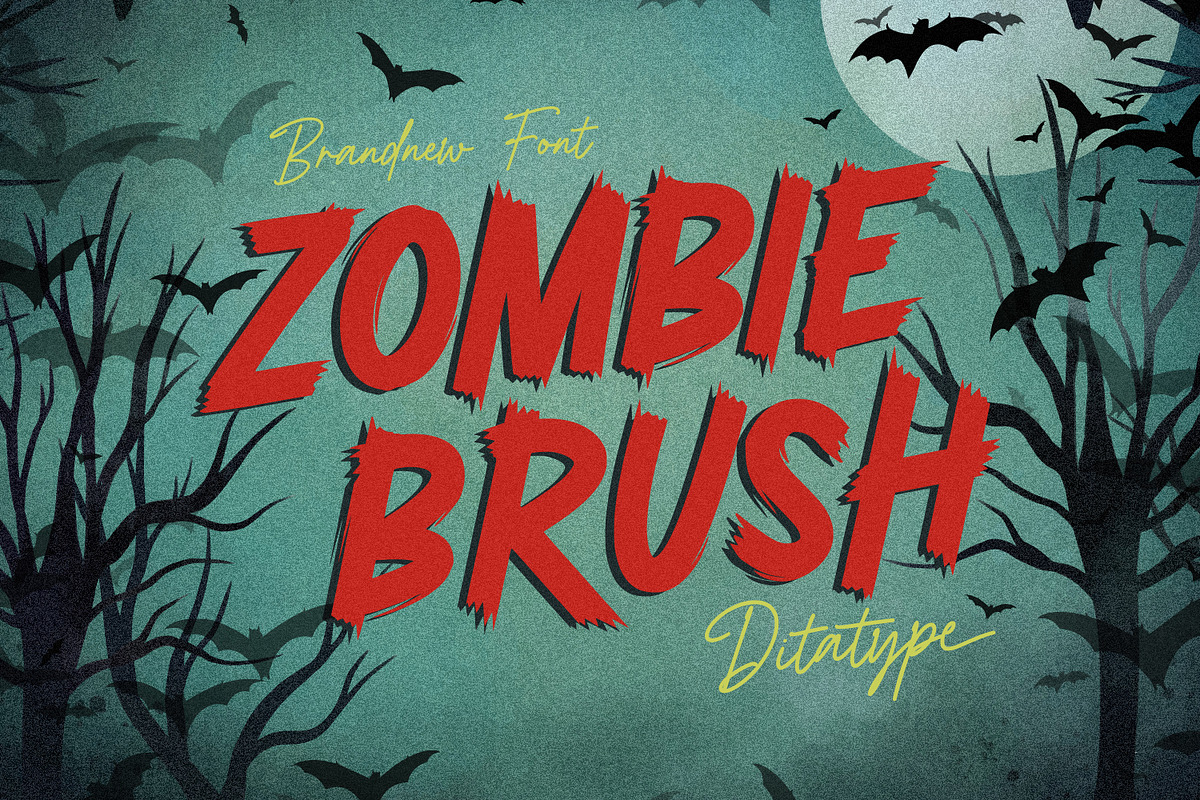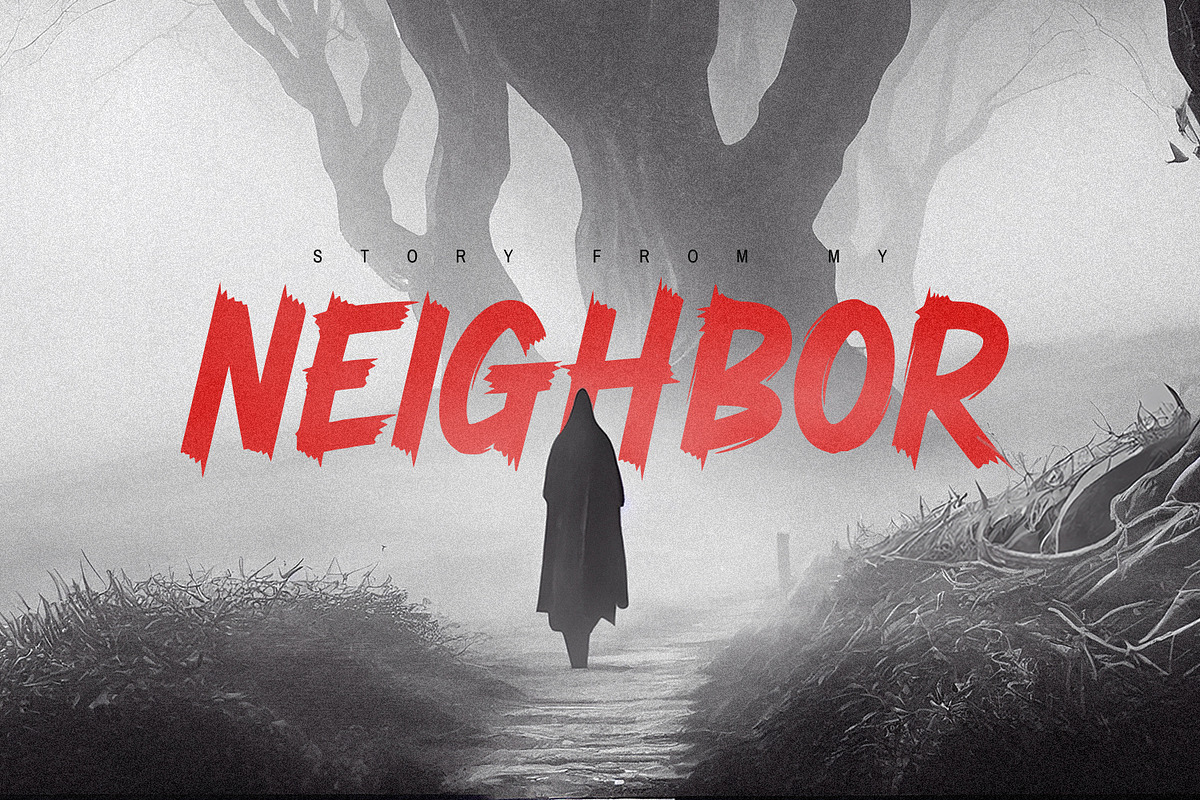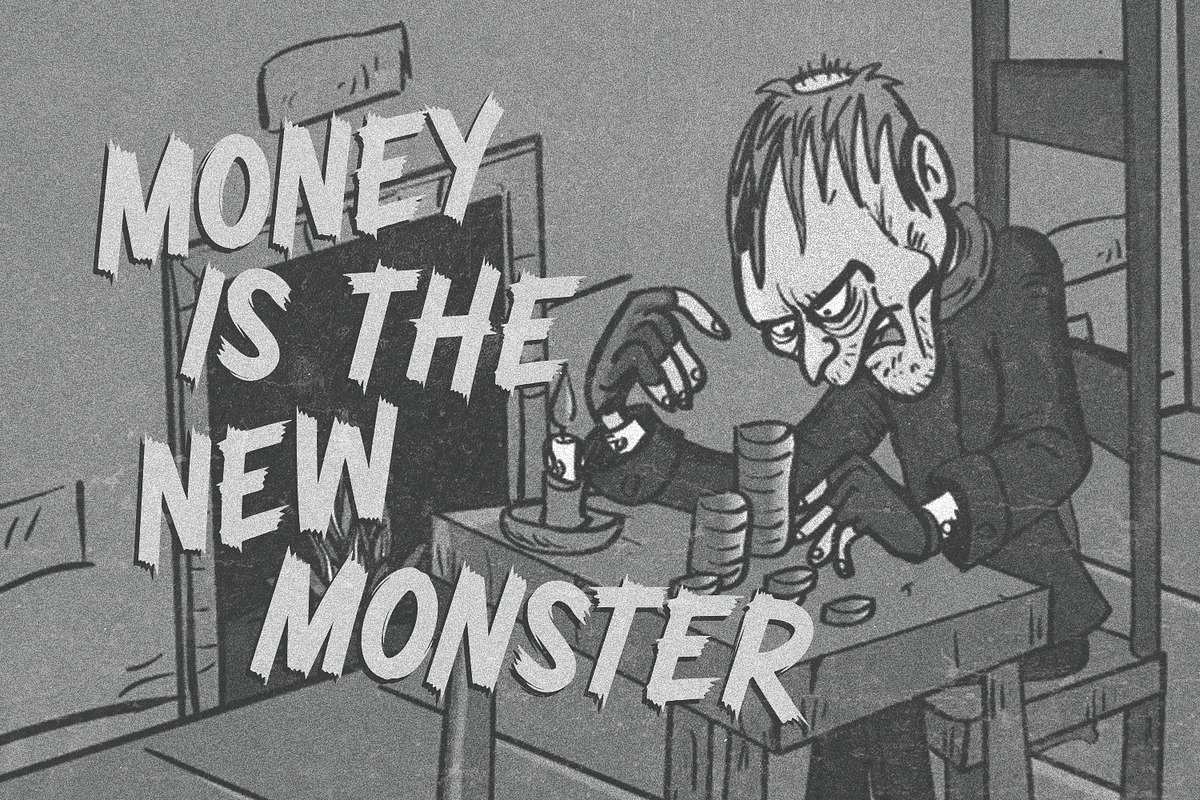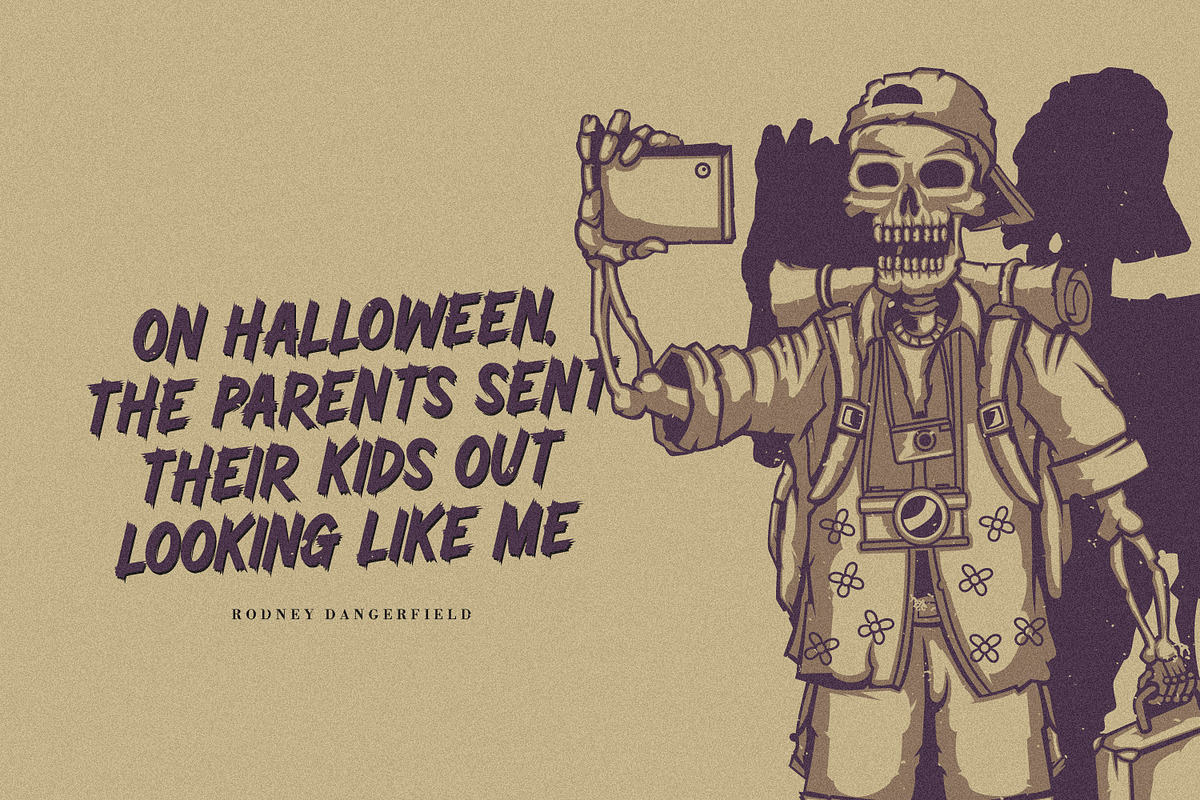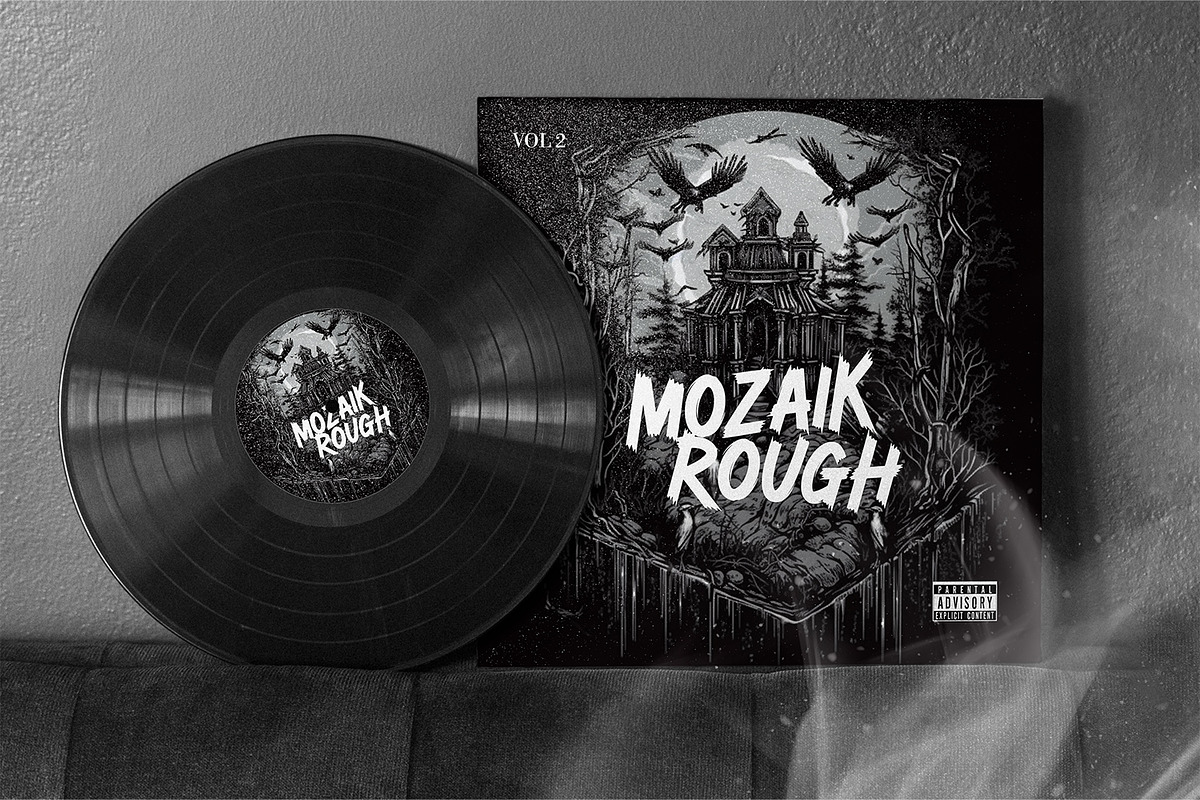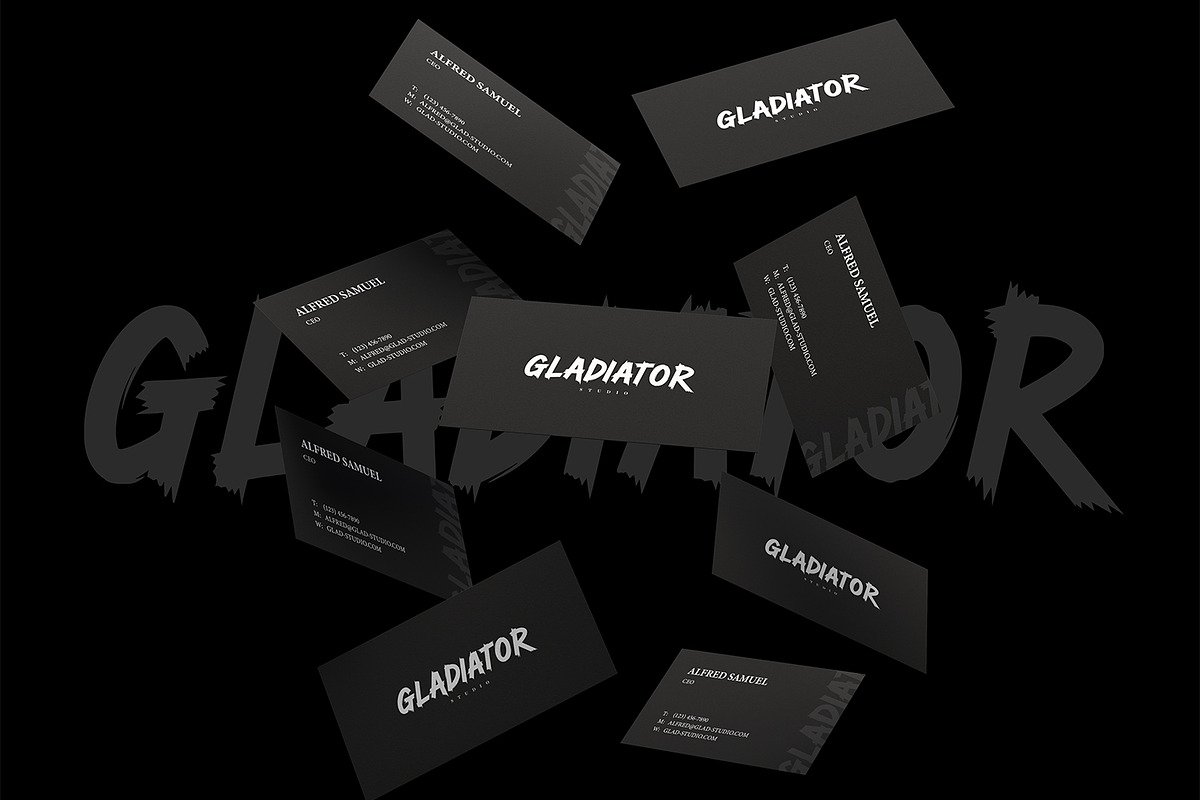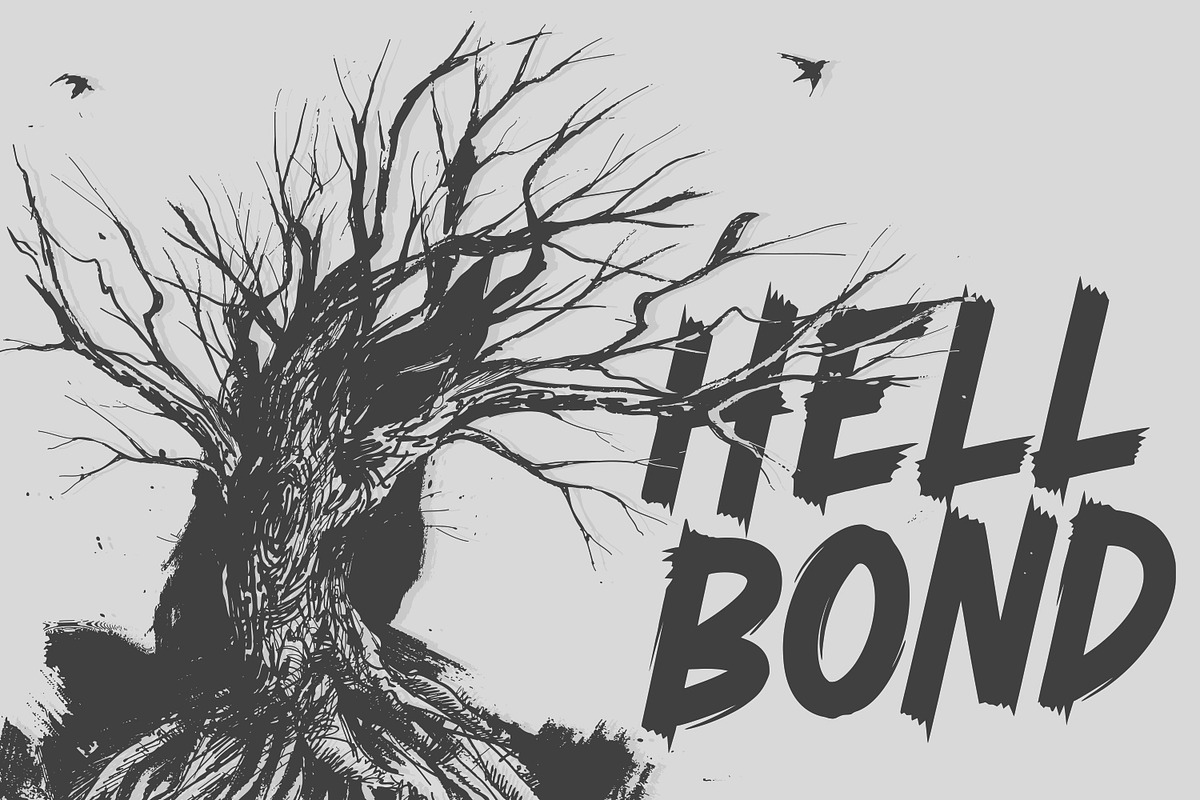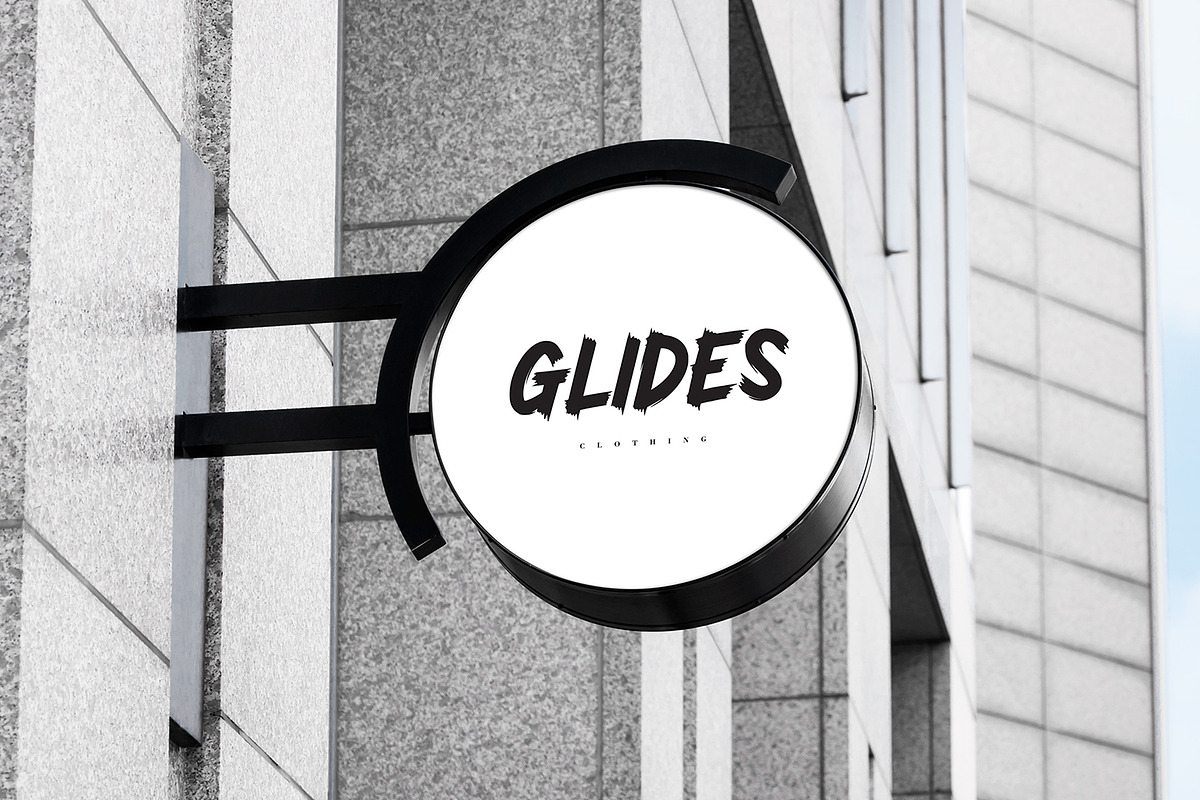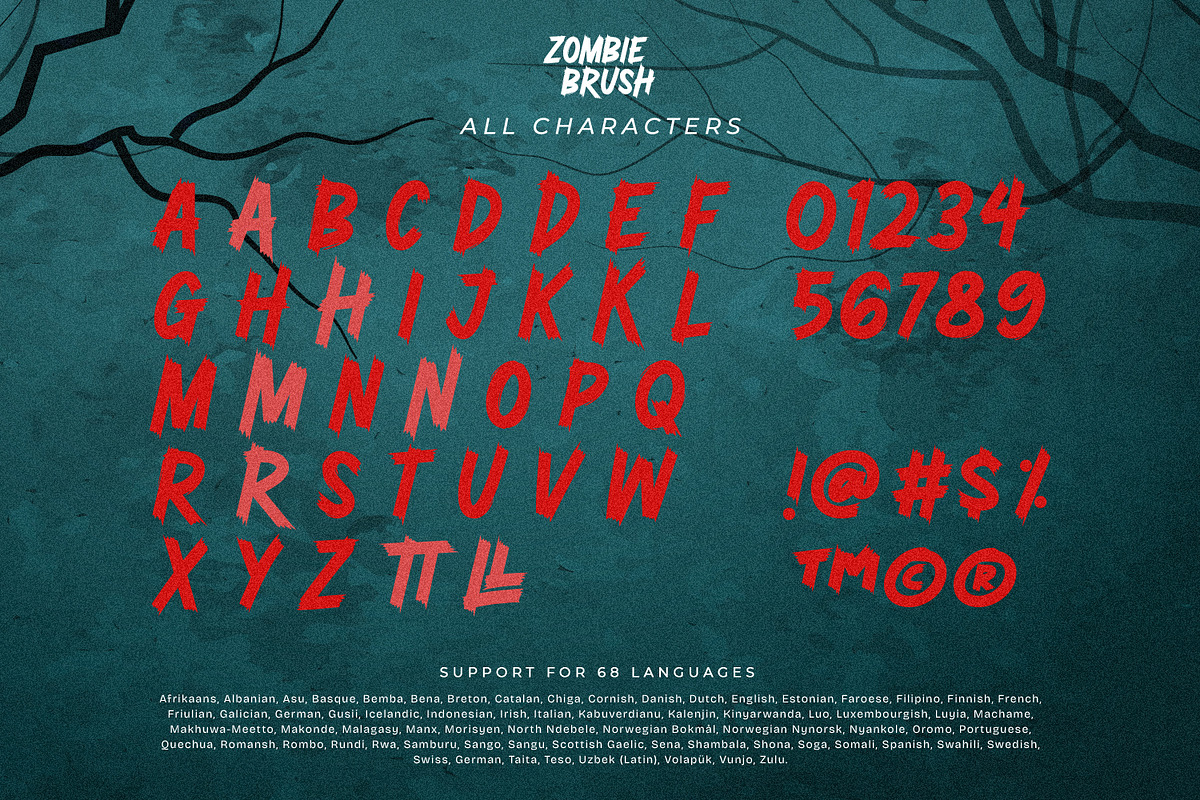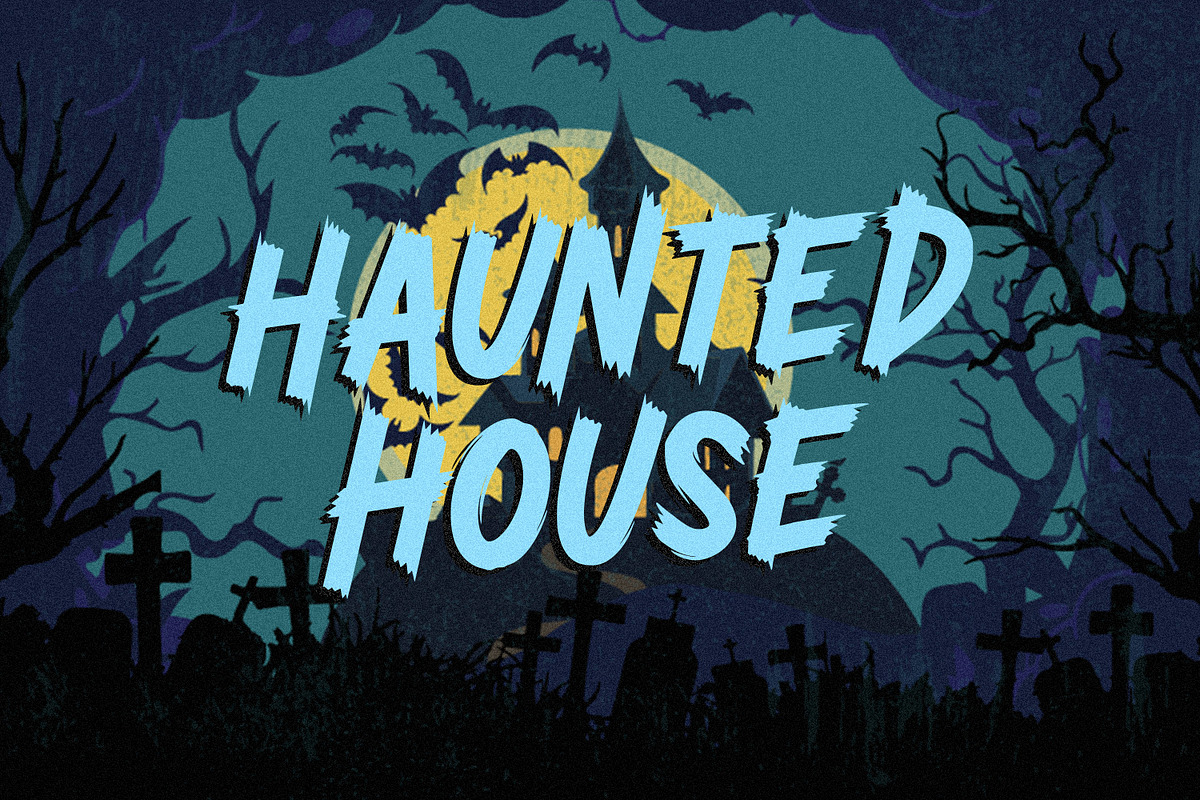
Zombie Brush
Zombie Brush is a haunting script font that brings the undead to life with its eerie charm and brush-style appearance. Designed intentionally in large letters, this typeface commands attention and exudes a sense of horror and intrigue. Each letter is meticulously crafted with brush-like strokes, adding a touch of handcrafted artistry to the font. The brush-style appearance of this font evokes a sense of chaos and unpredictability, as if the letters were created by an unsteady hand under the influence of dark forces. The large size of the letters enhances the font's imposing presence, making it impossible to ignore. For the best legibility you can use this font in the bigger text sizes. Enjoy the available features here.
Zombie Brush fits in headlines, logos, movie posters, flyers, branding materials, print media, editorial layouts, headers, and zombie-themed projects. Find out more ways to use this font by taking a look at the font preview.